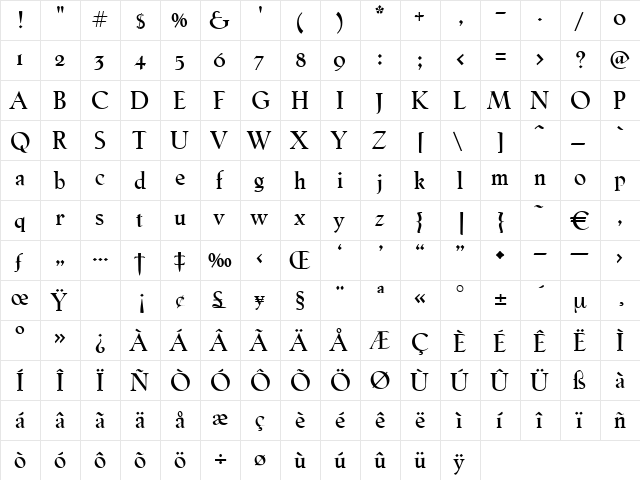
CosenzaBold Regular
Design Context for CosenzaBold Typeface
CosenzaBold is a composed and adaptable typeface that performs quietly and consistently across a wide range of design contexts. The heavy weight commands attention and anchors typographic hierarchies.